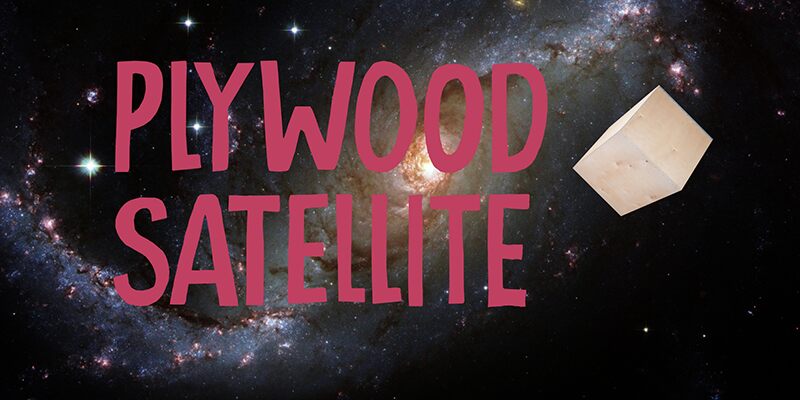
Plywood Satellite DEMO Regular
Plywood Satellite font by Hanoded is a free comic display font with a relaxed, old-style look. The letters are unevenly shaped and feature grunge elements that decorate the edges. Incorporating condensed width, Plywood Satellite represents the designer’s quirky side.
Use Plywood Satellite on posters, card designs, book covers, invitation cards, merchandise, social media imagery, and marketing materials for your event. Use it also on food packaging designs like cups and boxes of snacks or drinks.